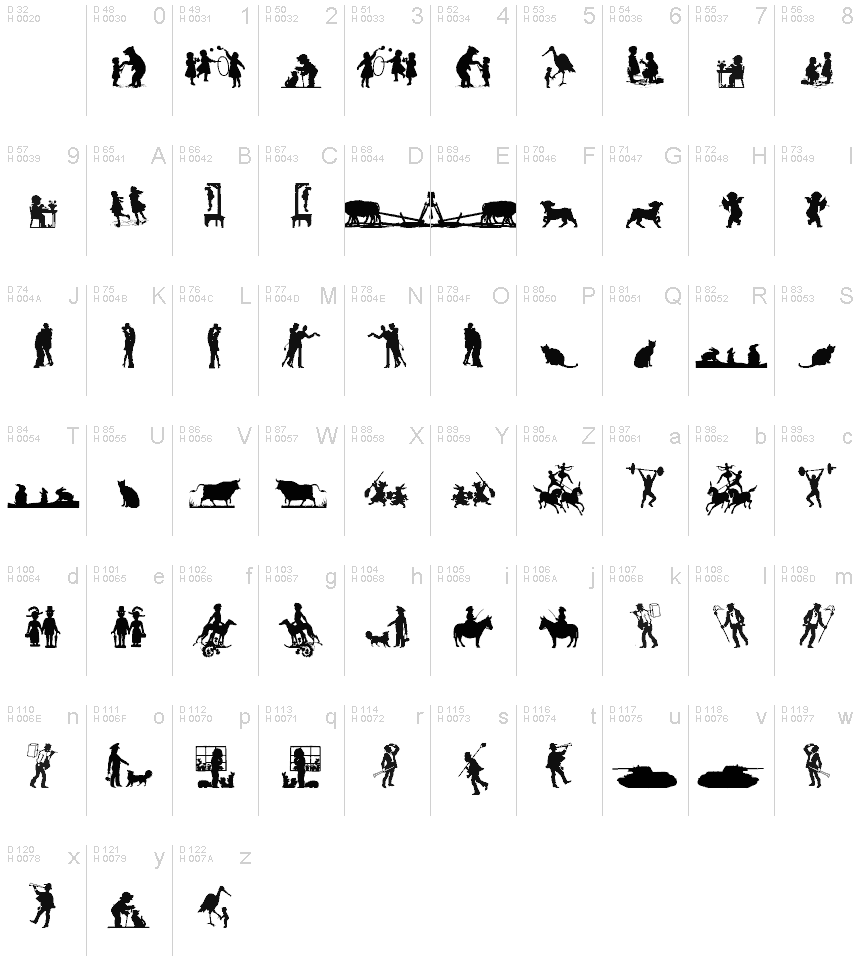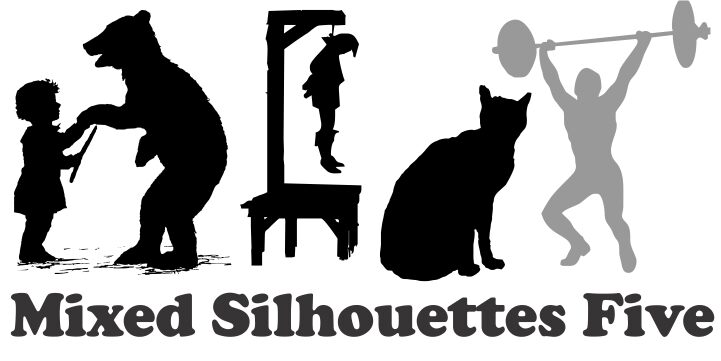
Mixed Silhouettes Five
Mixed Silhouettes Five, a captivating dingbat font crafted by Intellecta Design, masterfully blends playful silhouettes and whimsical motifs. This distinctive typeface exudes a lively, expressive energy, inviting viewers to explore its rich tapestry of dynamic shapes and forms. From energetic weightlifters to graceful dancers, the diverse cast of characters captured in this font adds a touch of playfulness and charm to any design.
Its distinctive character sets and diverse iconography lend themselves particularly well to projects that require a sense of movement, and visual interest, allowing designers to craft captivating narratives and memorable brand experiences.